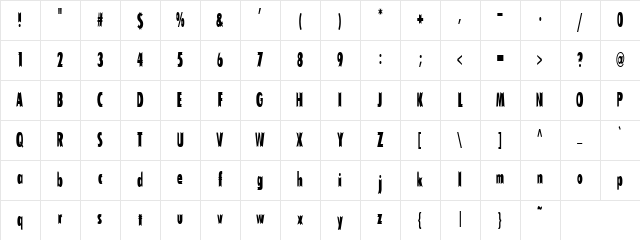
Tofu Regular
Design Context for Tofu
Tofu is a composed and adaptable typeface that performs quietly and consistently across a wide range of design contexts.
Pro Tip: Use Tofu in both headline and body roles to test its range before committing to a single application.